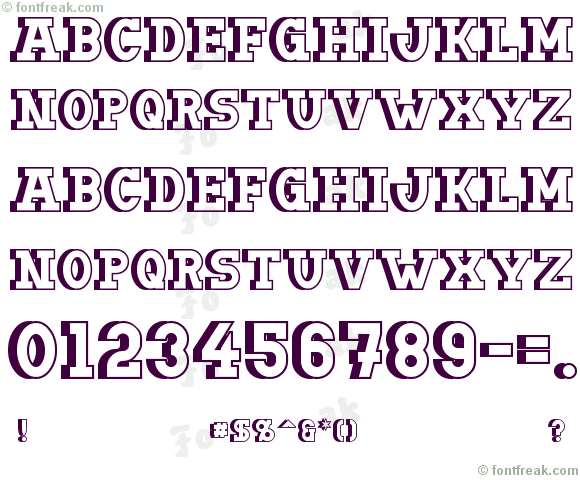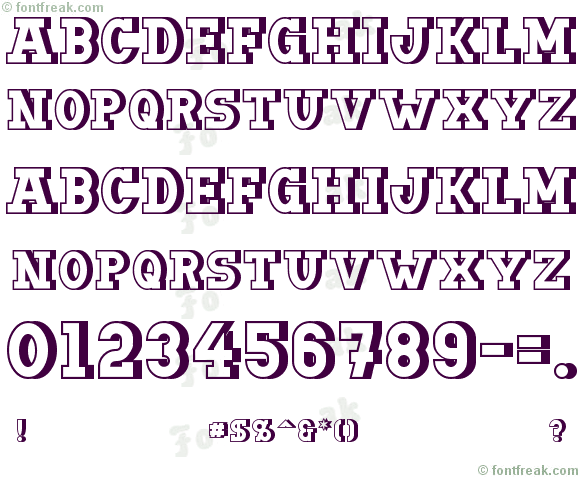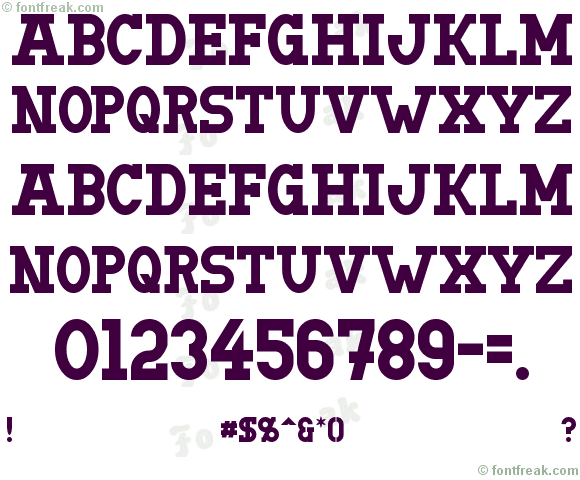
DoergonBackshift
Doergon Shift
Doergon
DoergonBackshift is a distinctive display font designed by Peter Wiegel, categorized under the decorative style. Its bold, robust letters feature a unique visual appeal, characterized by pronounced stroke weight and minimal contrast, which results in a strong and eye-catching presence. The font's geometric shapes are complemented by subtle decorative elements, creating a balance between modern aesthetics and classic charm. The letter spacing is thoughtfully considered, ensuring legibility while still maintaining an artistic flair that sets it apart.
This font is particularly well-suited for a variety of creative applications. It shines in eye-catching movie posters, where its boldness can draw attention and convey a sense of excitement. Additionally, DoergonBackshift is perfect for restaurant menus, adding an element of personality and style that can enhance the dining experience. Wedding invitations also benefit from its unique character, providing a memorable touch that reflects the couple's individuality. Furthermore, graphic designers and content creators can leverage this font for branding projects, promotional materials, or social media graphics, making their work stand out in a crowded marketplace.
The target audience for DoergonBackshift includes graphic designers, small business owners, and content creators who seek to make a lasting impression through their visual communications. The font's versatility and striking appearance cater to those looking for a distinctive touch that elevates their projects.